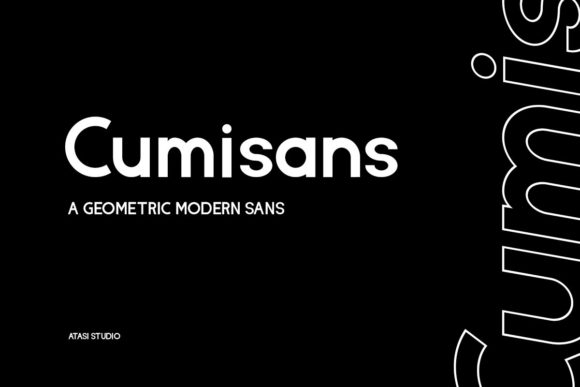
Cumisans Font
Step into the realm of typography and discover Cumisans Font, a sans serif font that captivates with its cool and playful spirit. Crafted by the talented atasistudio, this font is a masterpiece that transforms your designs into captivating statements.
With its unique style, Cumisans Font dances across your screen, captivating the eyes and leaving a lasting impression. Its carefully crafted curves and sharp edges create a harmonious balance, adding a touch of elegance to your projects. Whether you're a seasoned designer or just starting out, Cumisans Font is the perfect companion for unleashing your creativity.
Express your individuality and make a statement with Cumisans Font. Its extensive character set and multilingual support make it a versatile choice for a wide range of projects, from stunning logos and eye-catching headlines to captivating marketing materials and captivating social media posts. Cumisans Font is the key to unlocking your design potential and leaving a lasting impression on your audience.